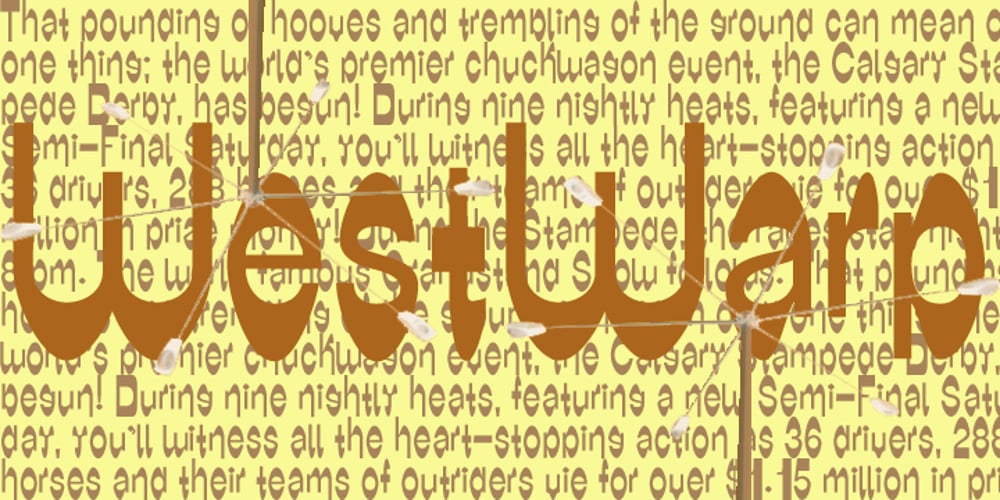
WestWarp Font Family was designed by E Victor C and published by EVCco. WestWarp contains 1 styles and family package options. Thick horizontals reminiscent of certain Egyptian or western-themed display faces warp into stretched-out glyphs and strange elliptical forms in this haphazard, page-filling font. Sure to evoke images of saturday morning cartoons, zany retro advertisements, and various other expressions of mid-20th century whimsy . Comes packaged in both TrueType and OpenType formats with standard complement of alpha-numeric glyphs, punctuation marks, mathematical symbols, and European diacritics.